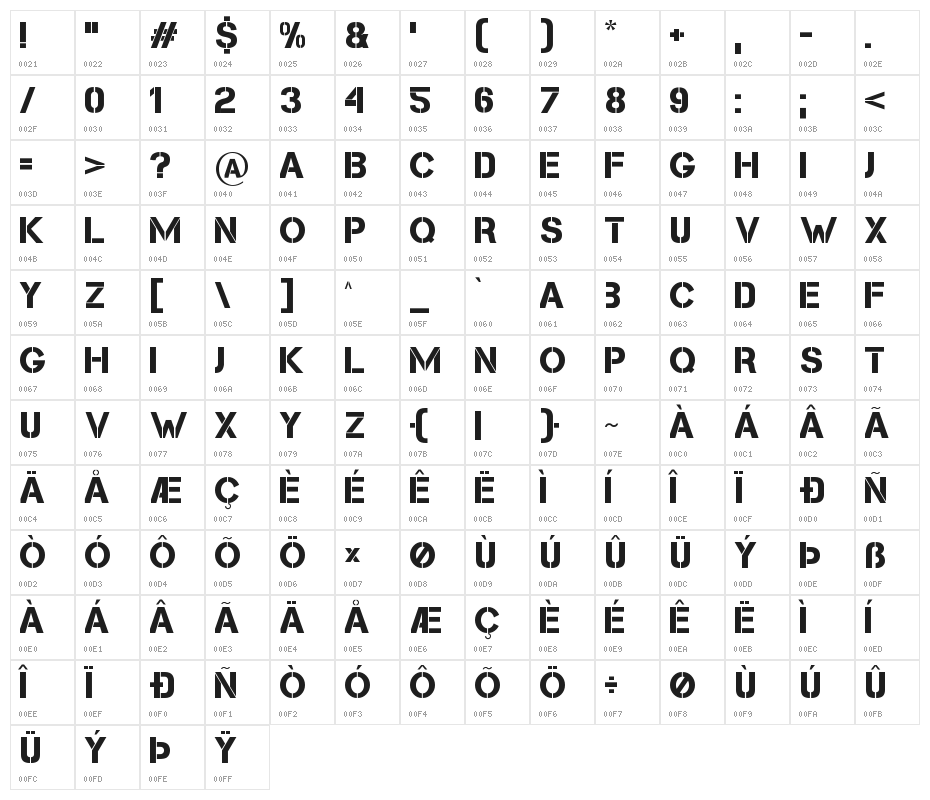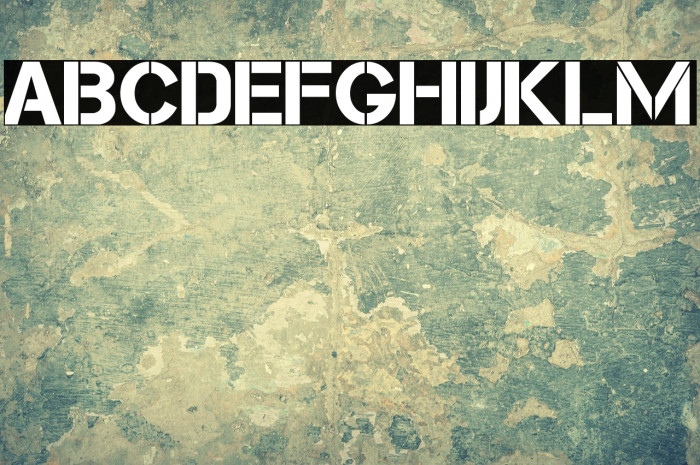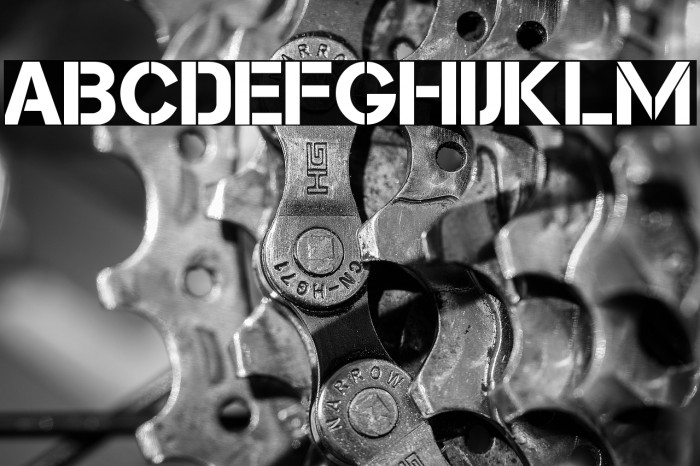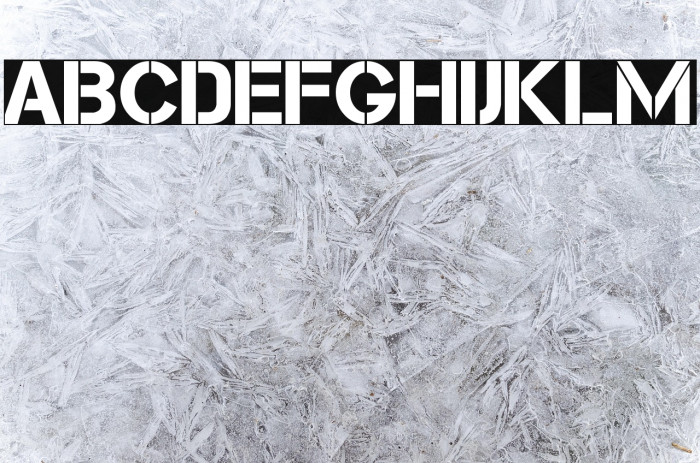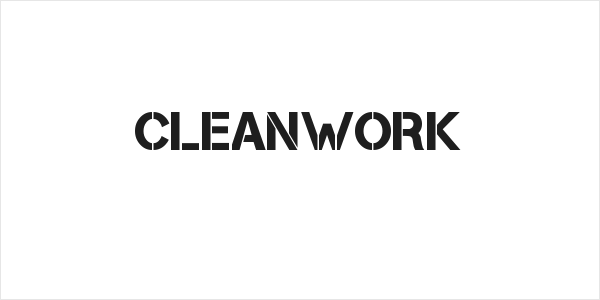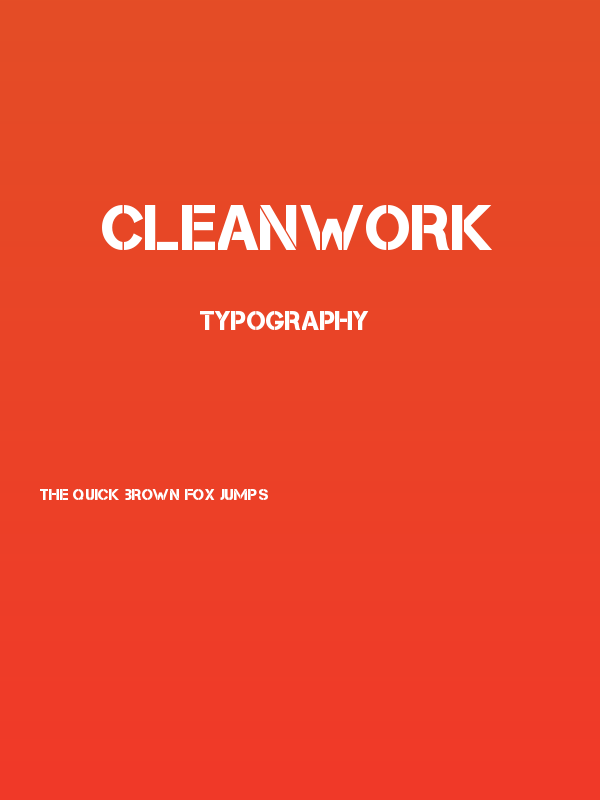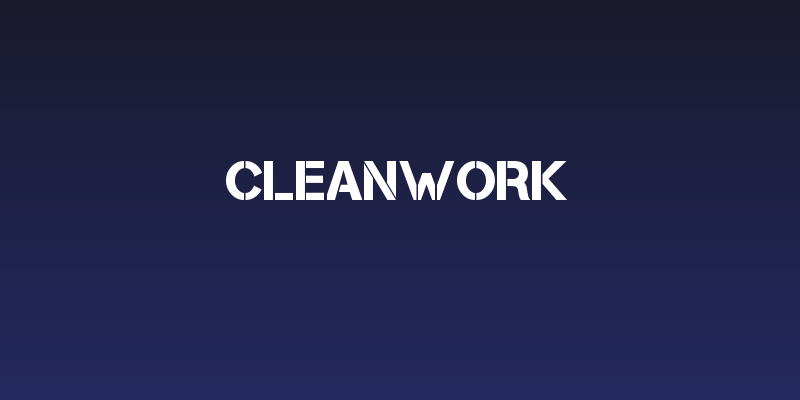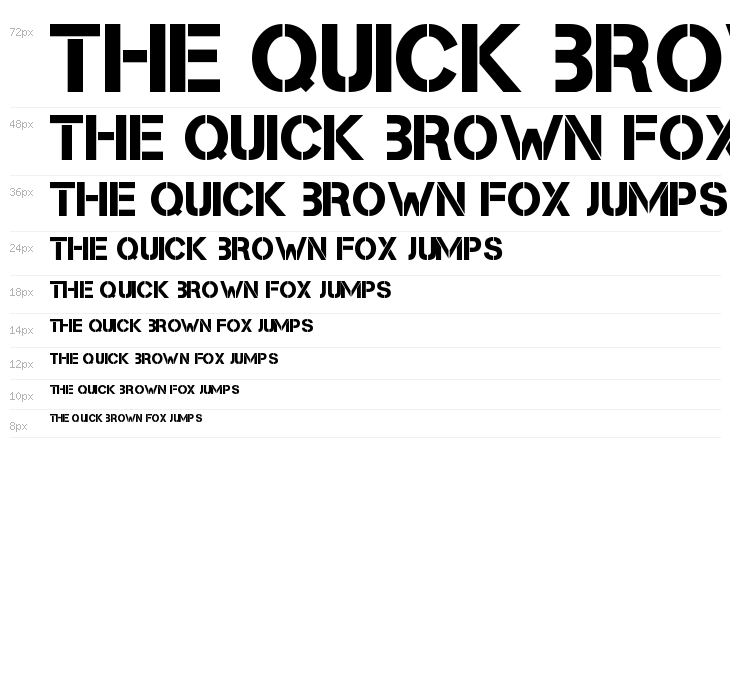
Cleanwork Font
Cleanwork Description
This font exhibits a bold, geometric style with a strong emphasis on angular shapes and sharp edges. The characters are constructed with a consistent thickness, creating a uniform and cohesive appearance. The design features a modern and industrial aesthetic, with each letter and number displaying a distinct, block-like form. The uppercase and lowercase letters maintain a similar structure, enhancing the font's overall uniformity. The special characters are designed to match the boldness and geometric nature of the alphabet, making them suitable for various design applications.